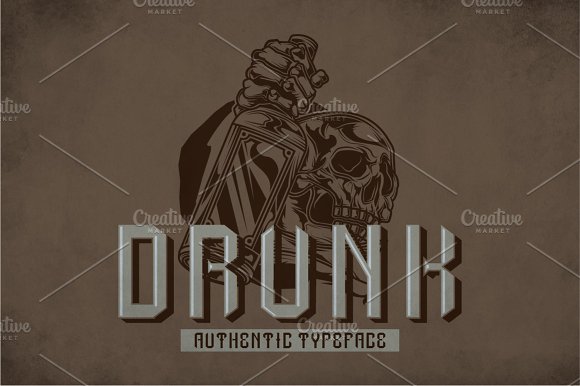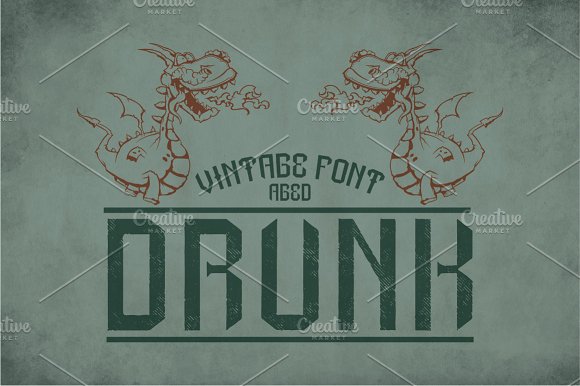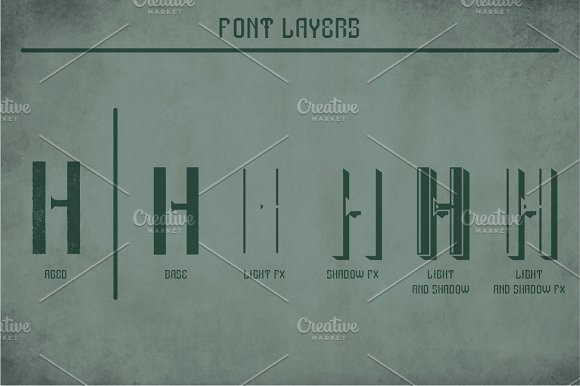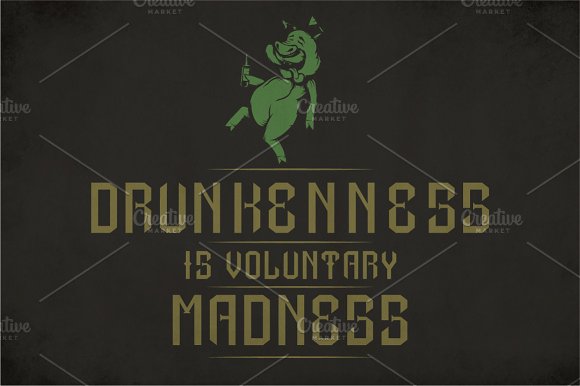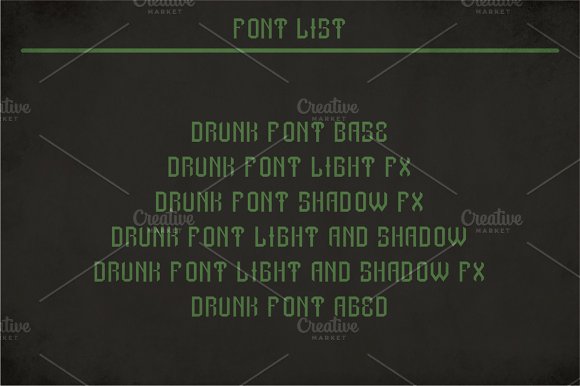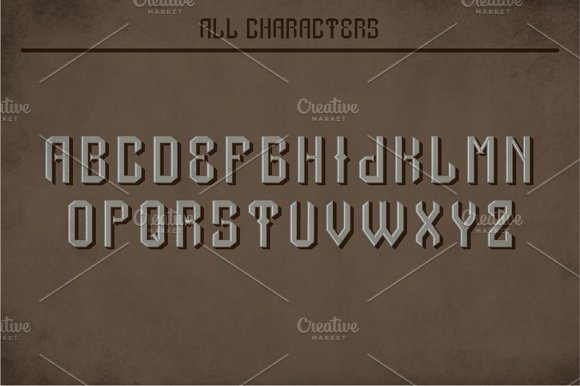
Drunk Modern Label Typeface
Introducing a original label typeface named “Drunk”. It’s made in fresh and modern label style. Typeface is good viewed on any labels design.